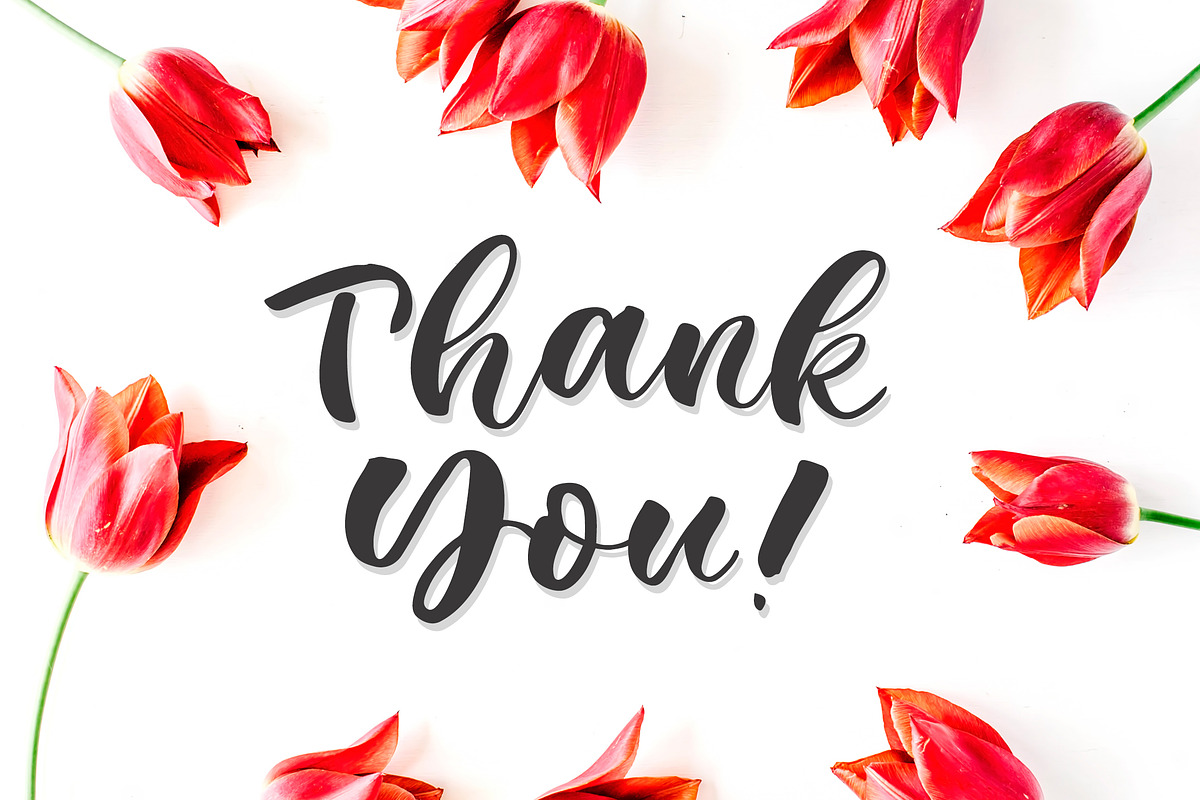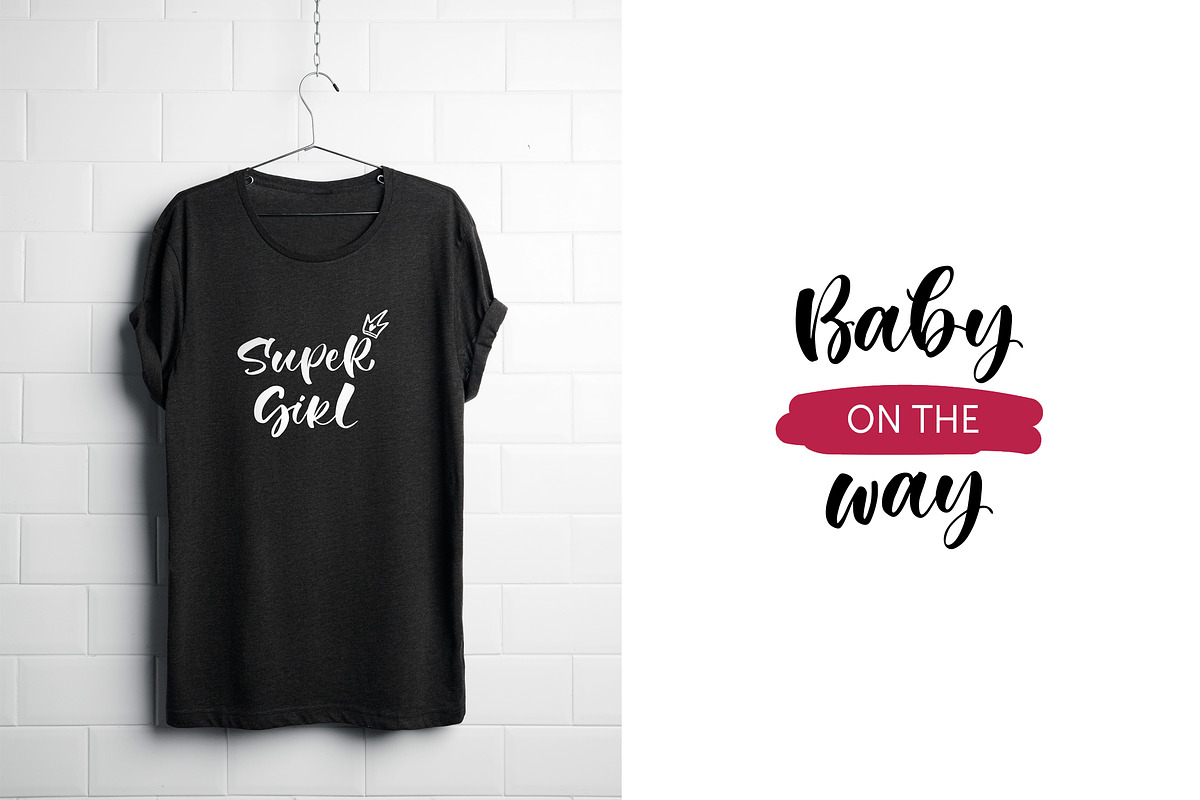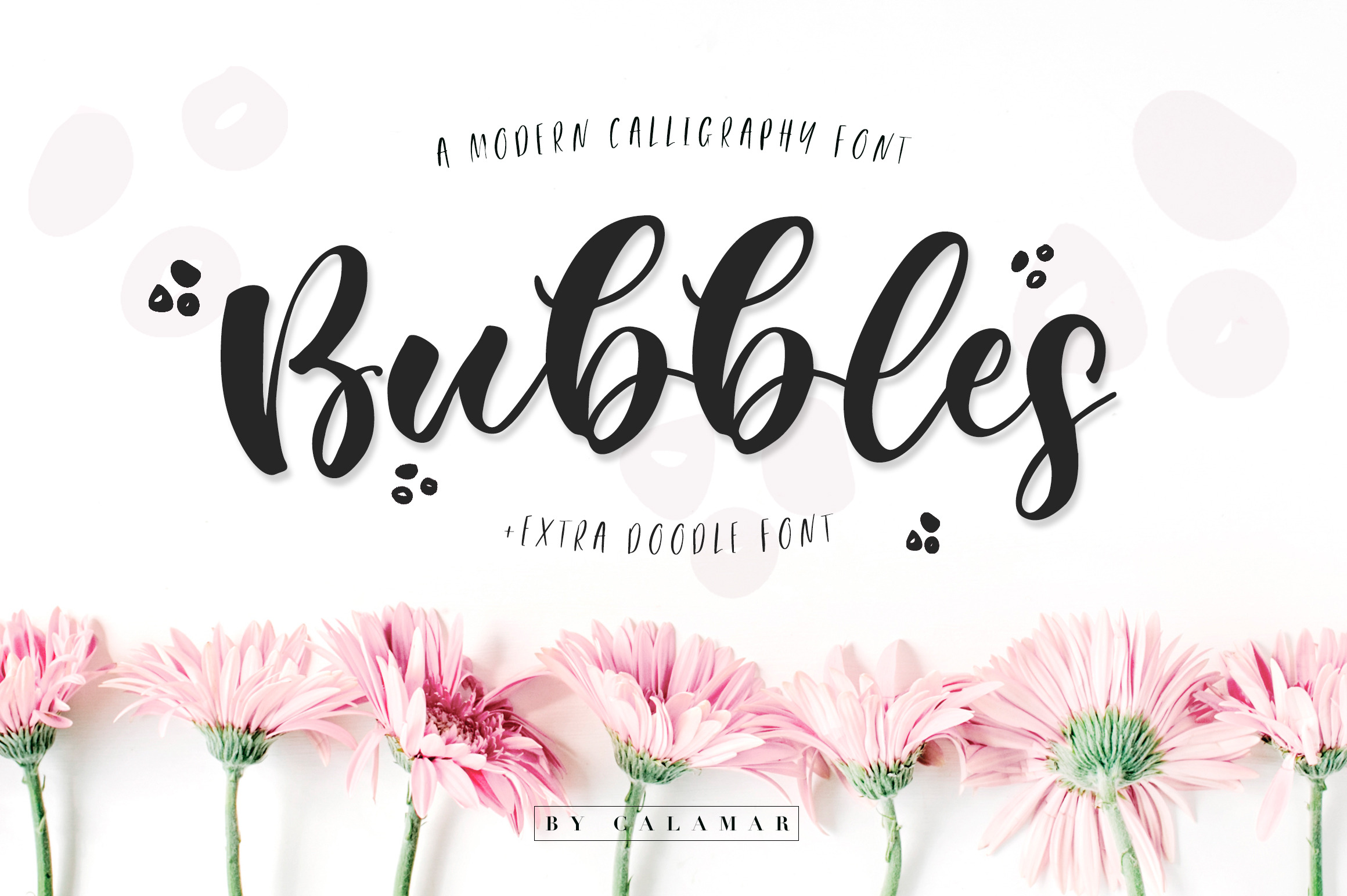
Bubbles Font
Happy to introduce you my new Bubbles Font!
It's a playful calligraphy script created specifically for baby industry and would look great on cute cards, mugs, onesies, t-shirts and other lovely baby stuffs you are working on.
Bubbles Font includes Upper and Lowercase Basic Characters, Numbers and Punctuation. Open Type Features include some ligatures and contextual alternatives (initial and final glyphs).
Extra Font includes 26 handdrawn baby illustration which you can type out using the characters a-z, A-Z.